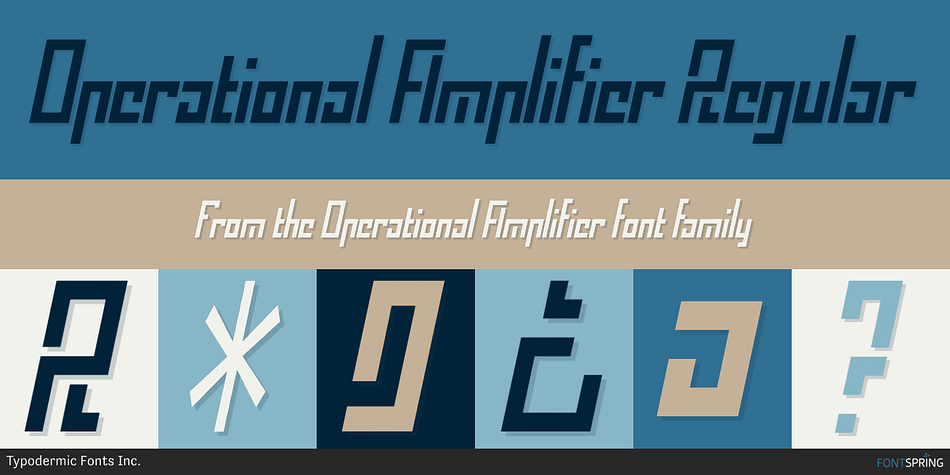
Operational Amplifier Regular
Operational Amplifier is a display font published by Typodermic Fonts Inc.
Operational Amplifier is a quadratic, technological typeface, raked to the right.